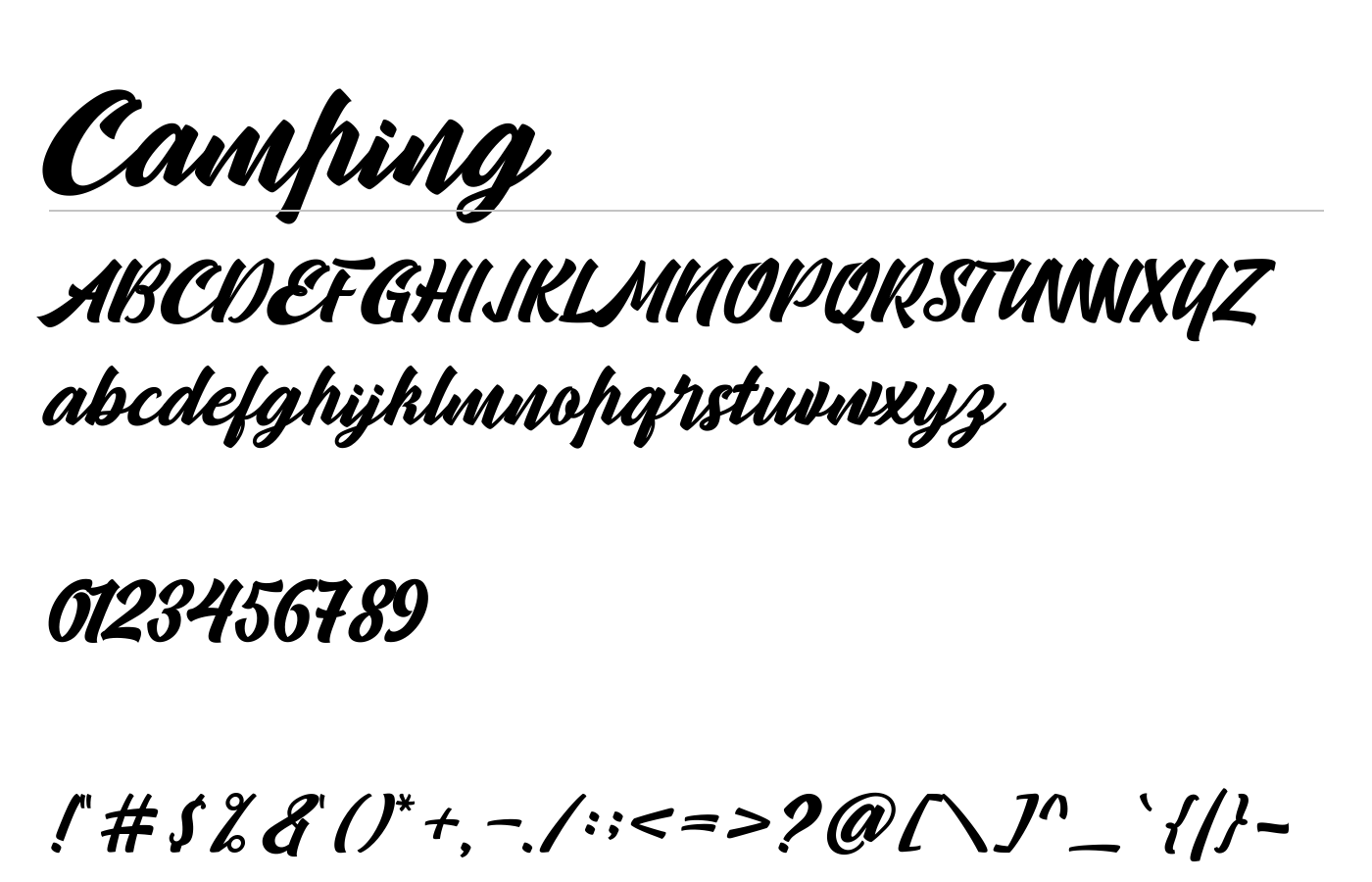
Camping Font is a bold, brush script typeface that conveys a lively and energetic mood with its flowing, hand-painted strokes and natural, expressive curves. Its dynamic character and casual style make it ideal for branding, posters, and headlines that need a friendly, adventurous vibe, particularly for outdoor, lifestyle, or creative projects.
Camping Font
About Camping Font
| Font family | Camping Font |
| Designer | Zulfikar Ali |